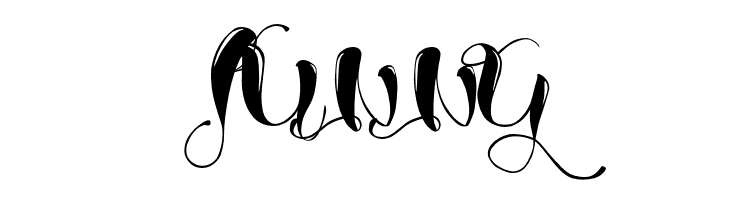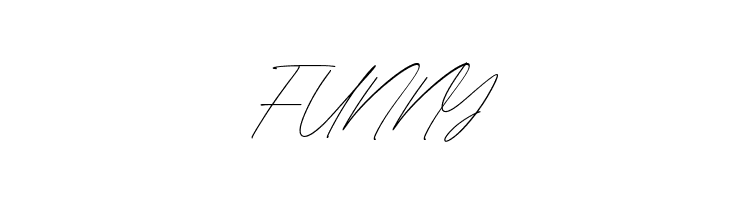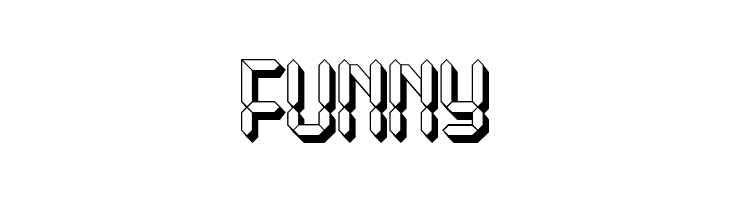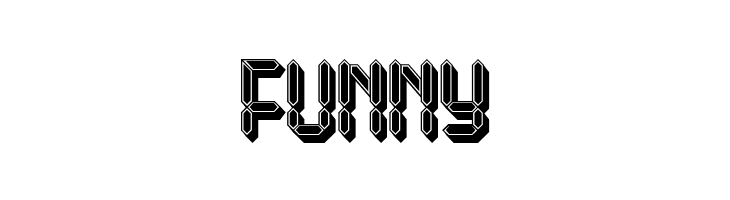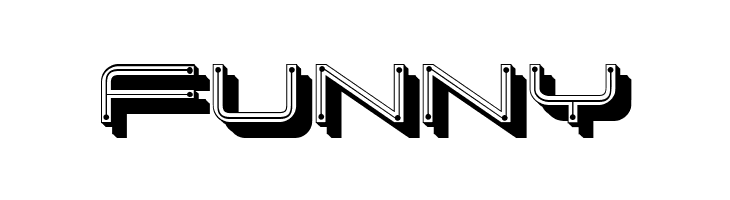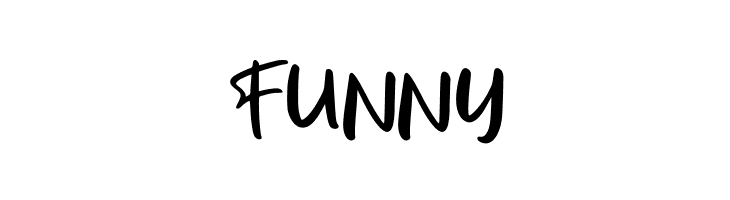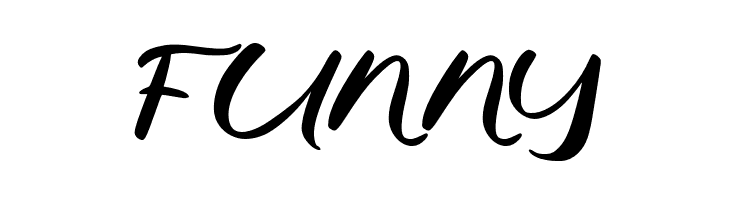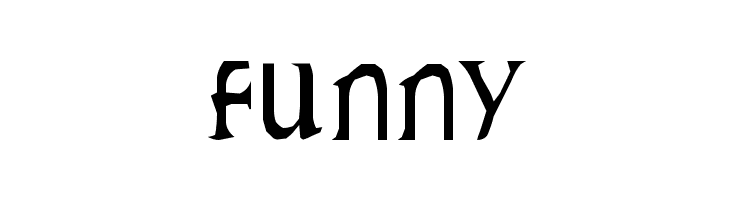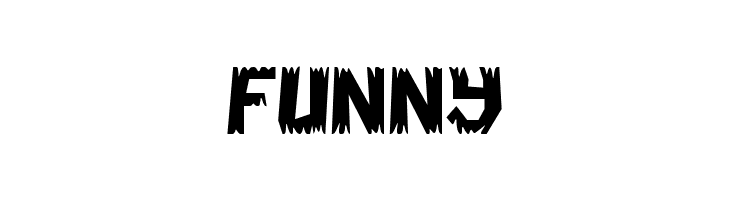
• GFSDidot-Bold
A classic serif font with high contrast and elegant design.
• GFSDidot-BoldItalic
An elegant, high-contrast serif font with italic styling.
• GFSDidot-Italic
An elegant serif font with a classic italic style and high contrast strokes.
• GFSNeohellenic-Bold
A bold, modern sans-serif font with clean lines and strong visual impact.
• GFSNeohellenic-BoldItalic
A bold italic font with a modern and elegant style, perfect for impactful designs.
• GFSNeohellenic-Italic
A clean and elegant italic font with smooth curves and a modern aesthetic.
• GFSNeohellenic-Regular
A modern sans-serif typeface with geometric influences and balanced proportions.
• GFWaterproof
• GFWet
• Ghetto Fabulous
A bold, dramatic script font with intricate curves and flourishes.
• Ghetto Fabulous Bold
A bold, dramatic font with a flowing, cursive-like style and urban flair.
• Ghetto Streetz
A bold, graffiti-inspired font with sharp, angular lines and an urban feel.
• ghost inline
An elegant and decorative script font with flowing, intricate letterforms.
• Ghost Pumpkin
Bold and playful font with chunky, irregular shapes.
• Ghost Zone - Personal Use
A bold, spooky font with jagged, dripping characters ideal for horror themes.
• ghosthey Regular
A bold, blackletter font with intricate, angular lines.
• Ghotic Sketch
A bold, sketch-style font with diagonal hatching for a textured look.
• Gib Font Plox
• Gib Italic Font Plox
• Gideon Plexus
A bold, angular font with a modern and vintage blend, featuring high contrast and decorative elements.
• Gigabyte Hollow Regular
A bold, geometric font with a hollow, three-dimensional appearance.
• Gigabyte Regular
A bold, geometric font with a futuristic, digital aesthetic.